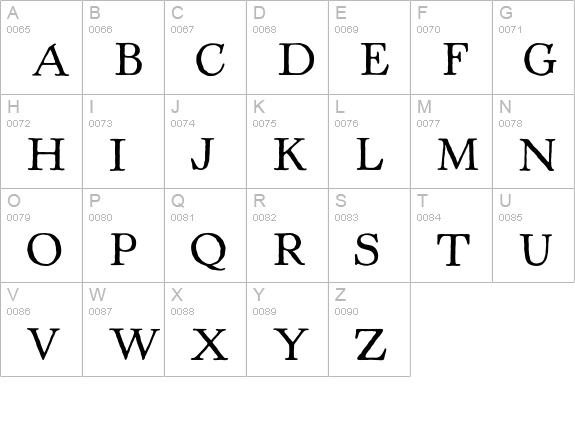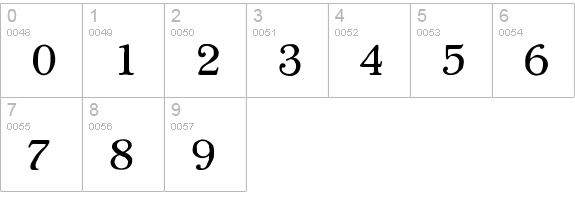
CrawfordOldStyle Font Details
CrawfordOldStyle is a classic and elegant serif font that exudes sophistication and timelessness. With its vintage charm and refined details, this font is perfect for adding a touch of sophistication to your projects. The graceful curves and sharp serifs of CrawfordOldStyle make it ideal for creating stunning headlines, invitations, logos, and more. Best of all, CrawfordOldStyle is available for free on FontsMarket.com. You can easily download this beautiful font and use it in your personal and commercial projects without any restrictions. Elevate your designs with the timeless beauty of CrawfordOldStyle and make a lasting impression on your audience.